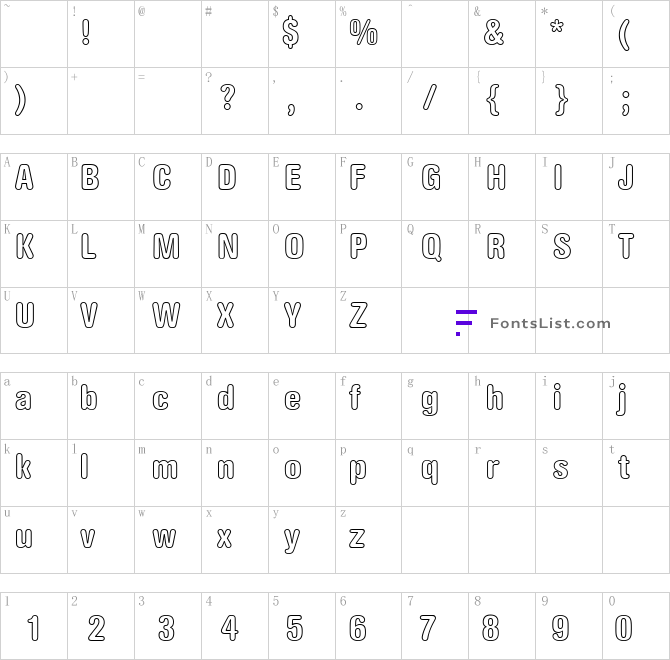
- Font Name:AG Book Rounded
- Full Name:AG Book Rounded Bold Condensed Outline
AG-Book-Rounded-Bold-Condensed-Outline.ttf is a very beautiful artistic font, AG-Book-Rounded-Bold-Condensed-Outline.ttf is widely used in the design and printing of various books and pictures,AG-Book-Rounded-Bold-Condensed-Outline.ttf has a strong visual impact,AG-Book-Rounded-Bold-Condensed-Outline.ttf is a commonly used font in newspapers, magazines and books, and is used in posters, e-commerce Poster design, store design, logo design, font design and other fields.AG-Book-Rounded-Bold-Condensed-Outline.